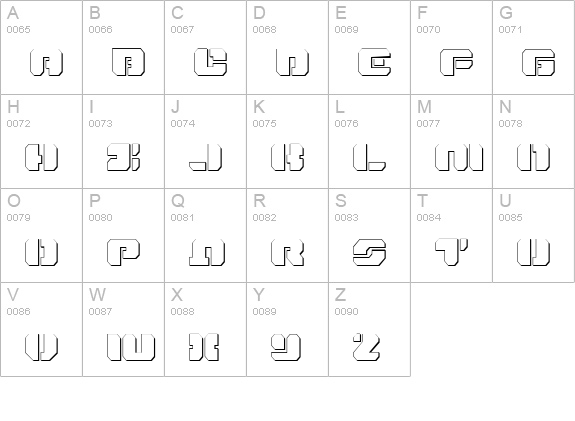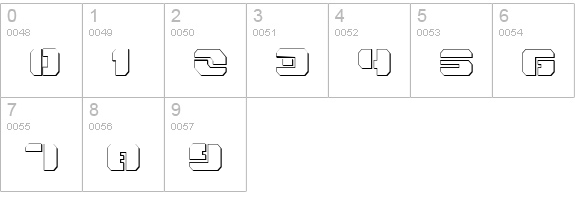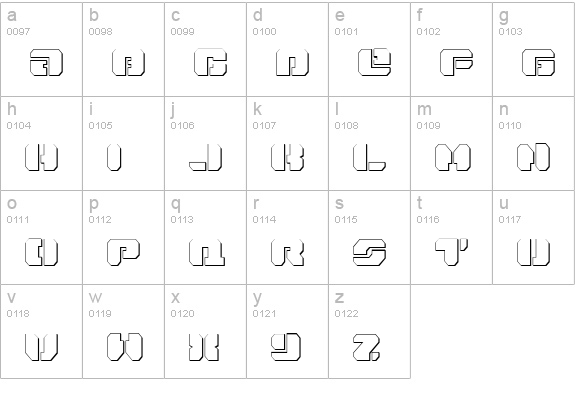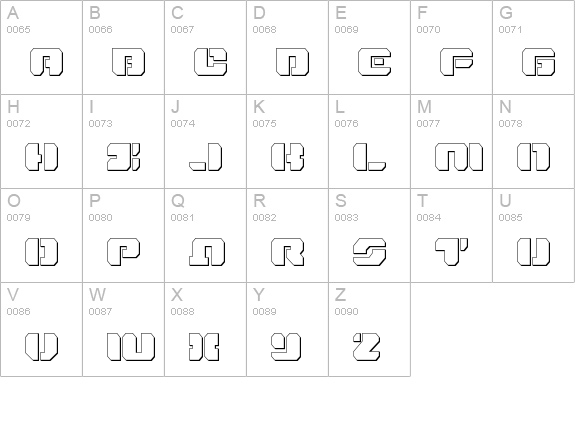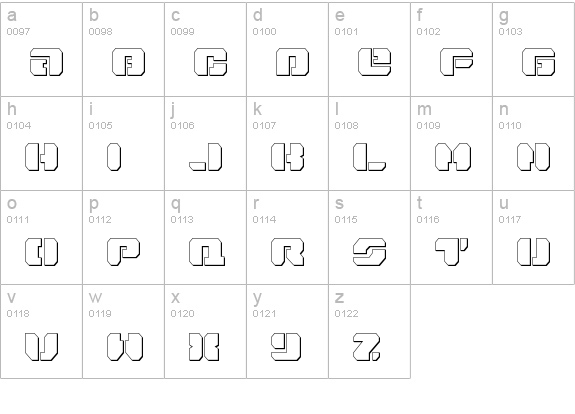
Dan Stargate Outline Font Details
Dan Stargate Outline font is a modern and sleek typeface designed with clean lines and sharp edges, perfect for adding a futuristic touch to your designs. This versatile font is ideal for headlines, titles, logos, and more, giving your projects a bold and eye-catching look. With its unique design and geometric shapes, Dan Stargate Outline font stands out and makes a statement. The best part is, Dan Stargate Outline font is available for free download at FontsMarket.com. You can easily access this stylish and contemporary font to enhance your creative projects without any cost. Don't miss the opportunity to elevate your designs with this stunning typeface that is just a click away. Download Dan Stargate Outline font today and take your typography to the next level!